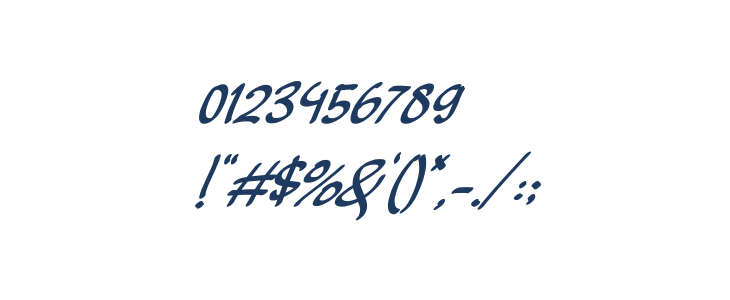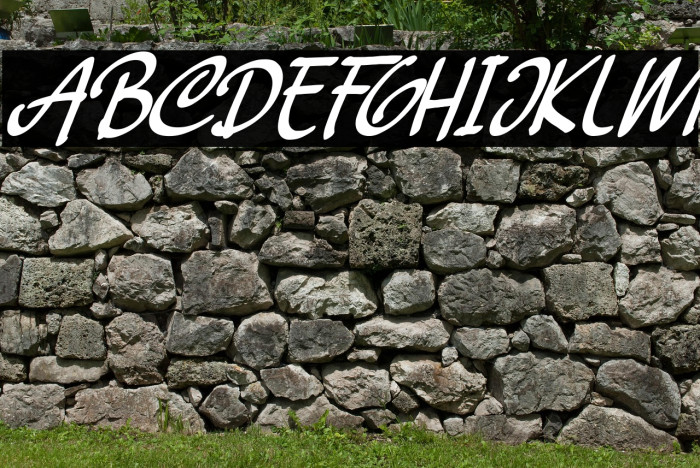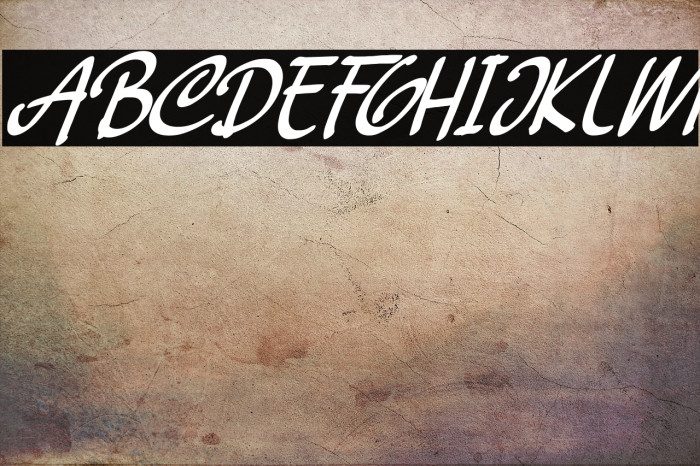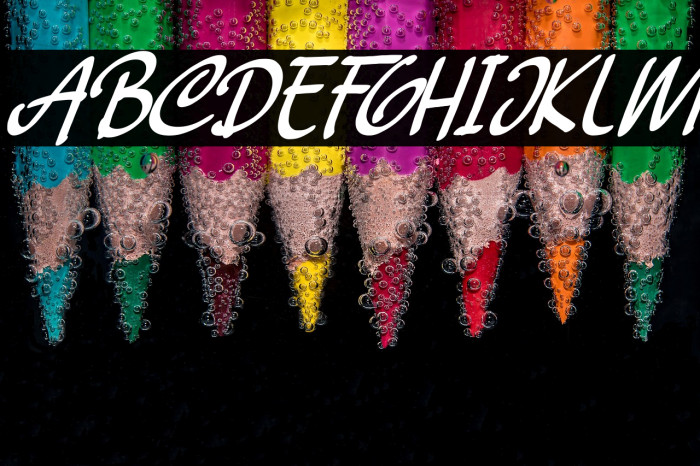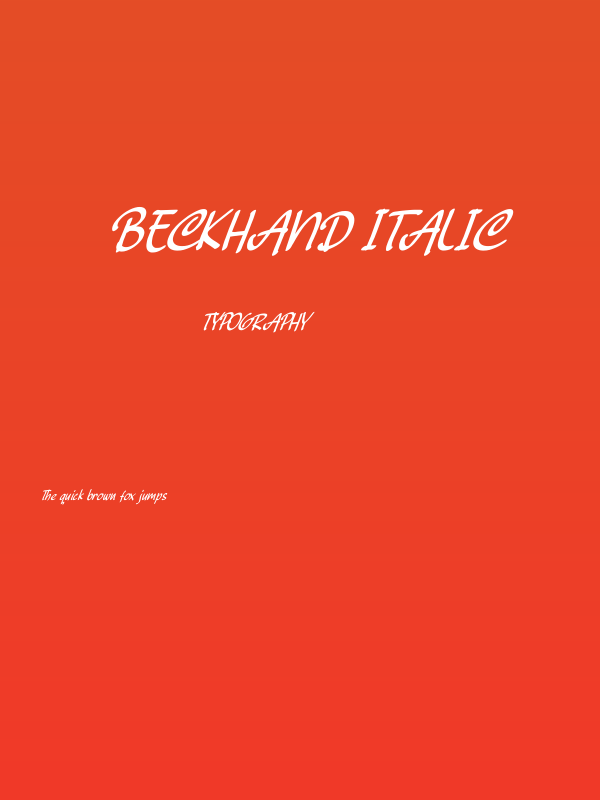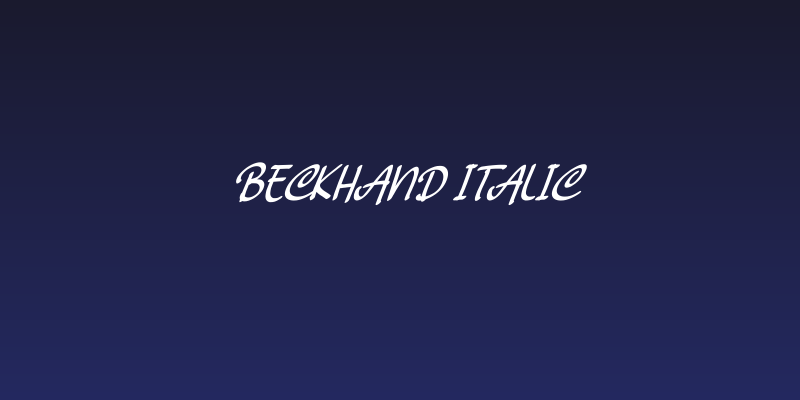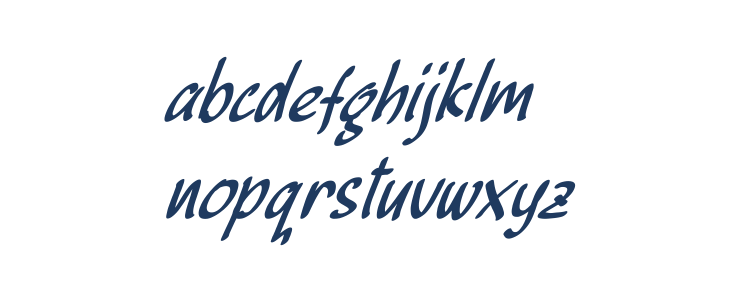
Beckhand Italic Font
Beckhand Italic Description
This font features a dynamic and fluid script style, characterized by its elegant and flowing letterforms. The strokes are smooth and connected, giving it a handwritten appearance that is both stylish and sophisticated. The italic slant adds a sense of motion and grace, making it ideal for projects that require a personal touch. The uppercase letters are bold and prominent, while the lowercase letters maintain a consistent flow, enhancing readability. The numbers and special characters are designed to complement the overall aesthetic, ensuring versatility across various applications.